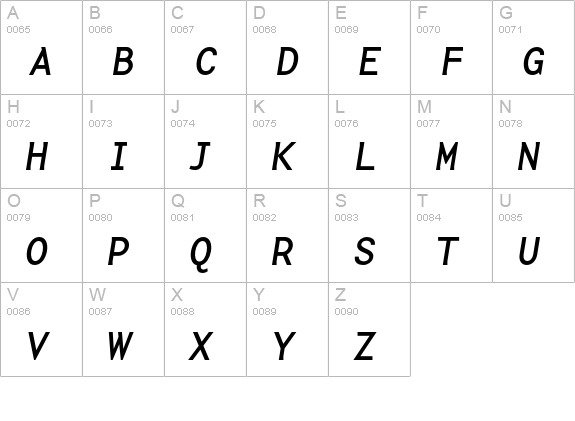
BaseMonoWideRegItalic Font Details
BaseMonoWideRegItalic is a sleek and modern typeface that combines the classic elegance of a monospaced font with a contemporary twist. Its italicized style adds a touch of sophistication and flair, making it perfect for a wide range of design projects. This font is not only visually appealing but also highly versatile, making it suitable for both digital and print applications. Whether you are designing a website, creating a logo, or crafting a poster, BaseMonoWideRegItalic will bring a polished and professional look to your work. Best of all, this font is available for free download at FontsMarket.com. So why wait? Elevate your designs today with the timeless elegance of BaseMonoWideRegItalic.